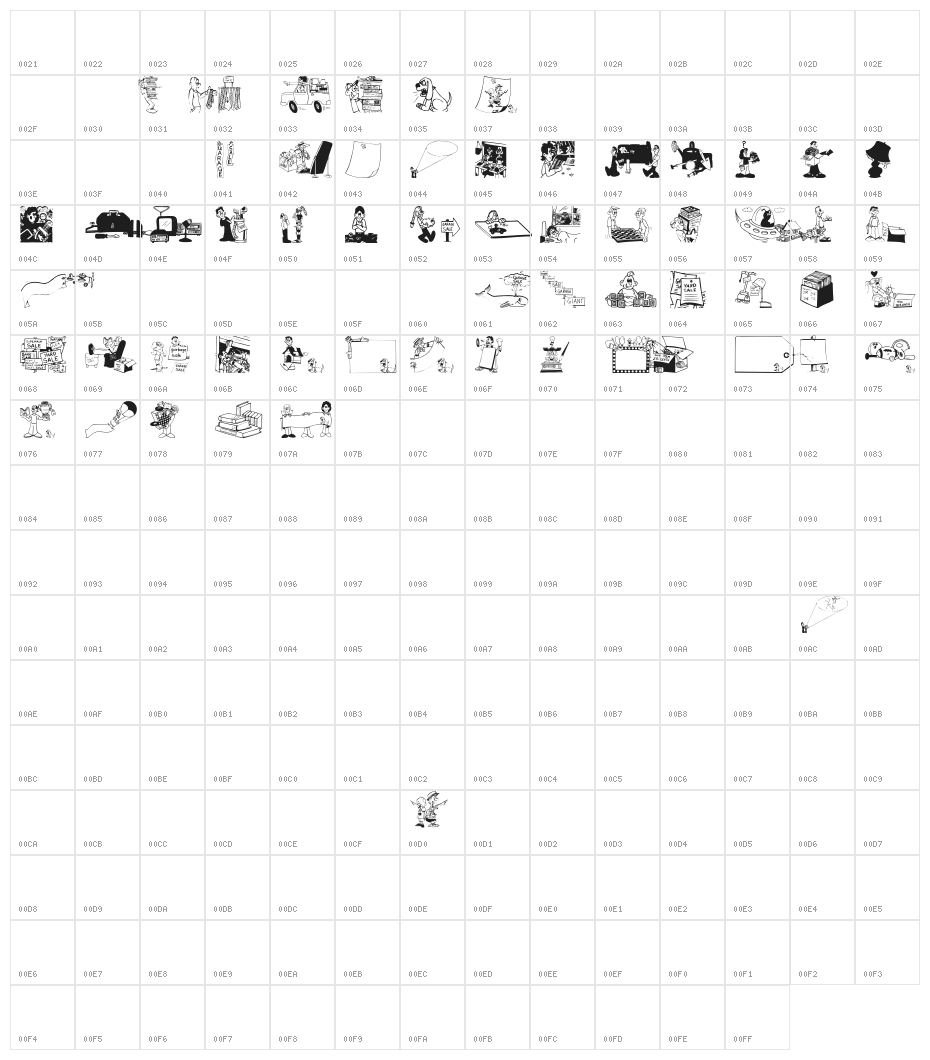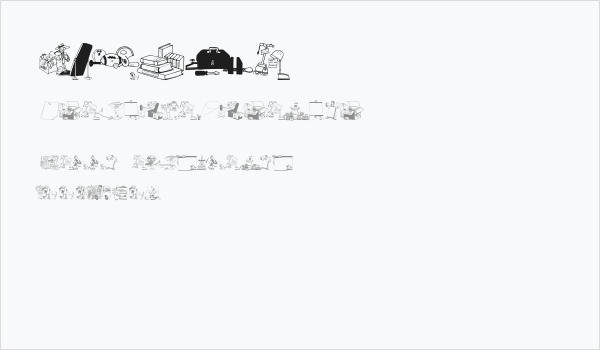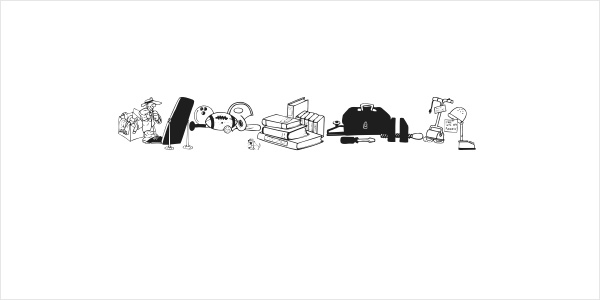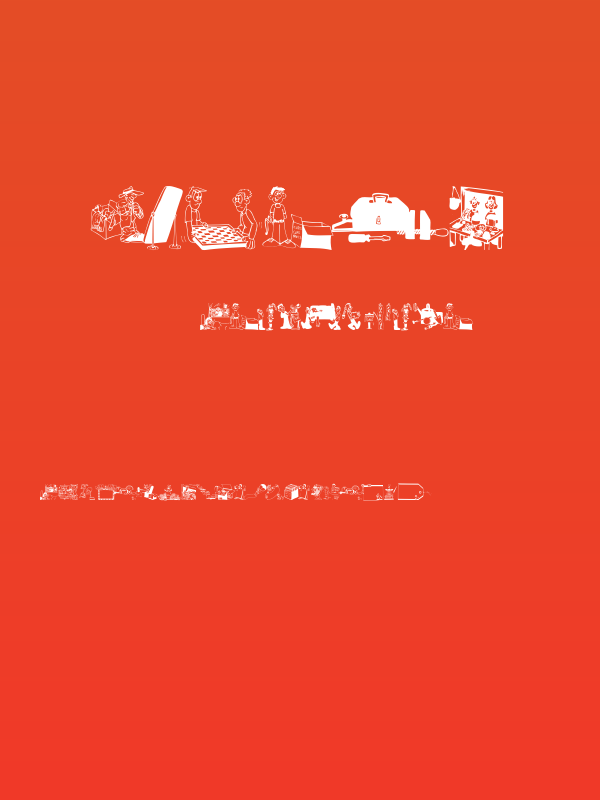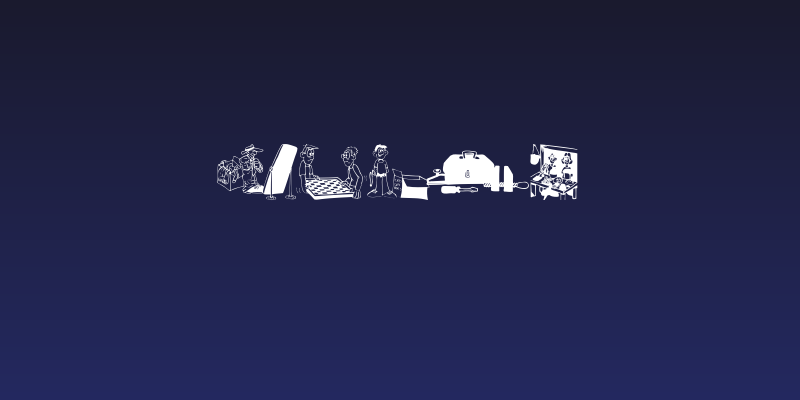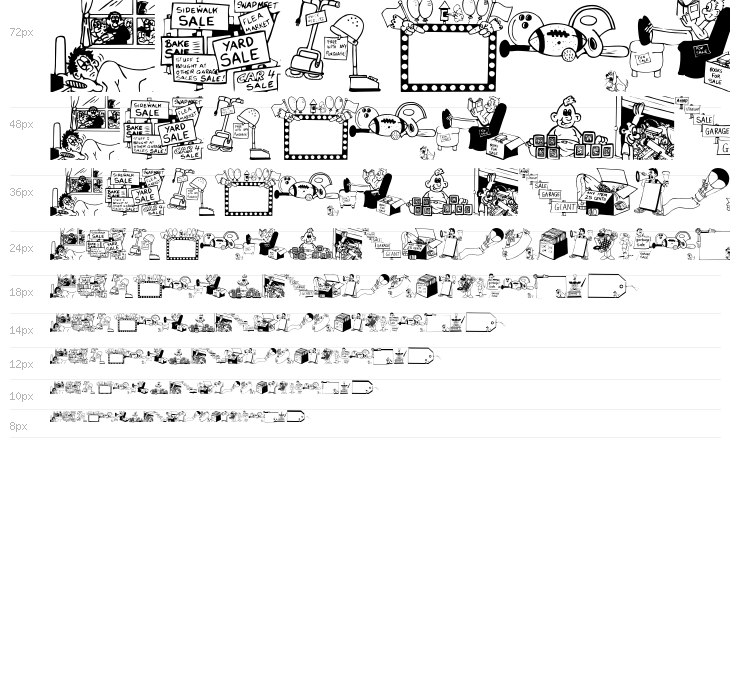
A highly decorative and playful font composed entirely of detailed cartoon illustrations, each representing a letter, number, or symbol with unique scenes and characters related to commerce, shopping, and sales.
| Overall Style | Decorative, Playful, Cartoonish |
| Use Case | Logos, Headlines, Posters, Themed Graphics |
| Proposed Projects | ChildrenΓ’β¬β’s books, playful advertisements, themed event posters, educational materials, novelty greeting cards. |